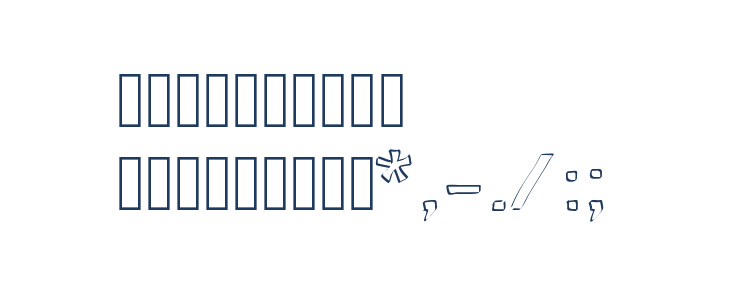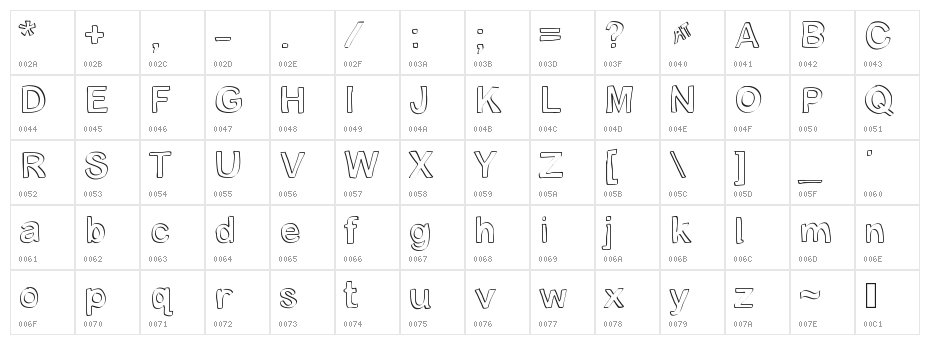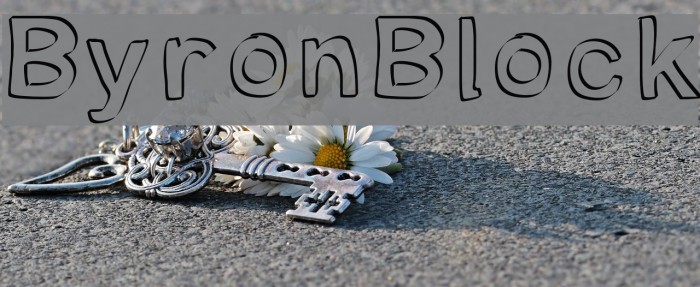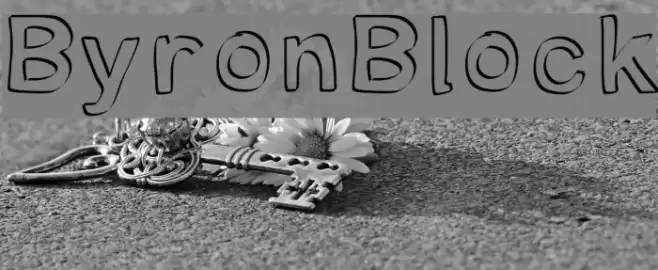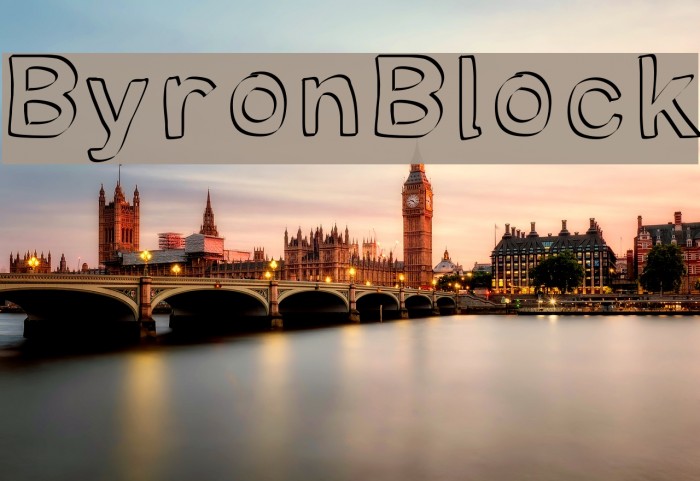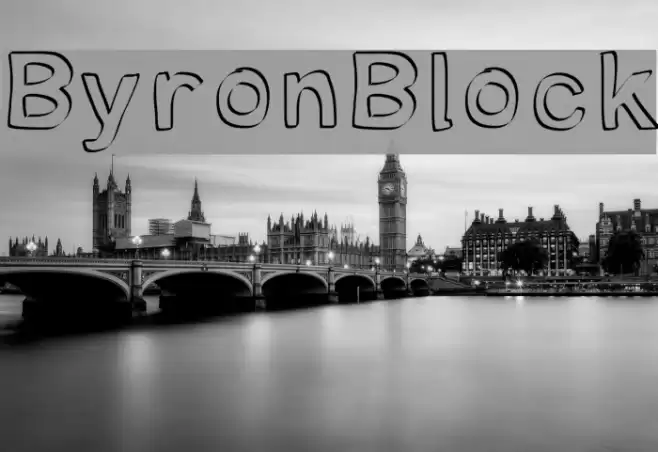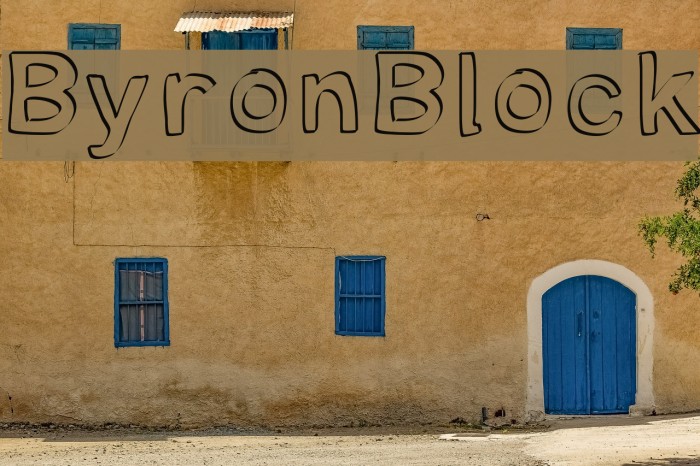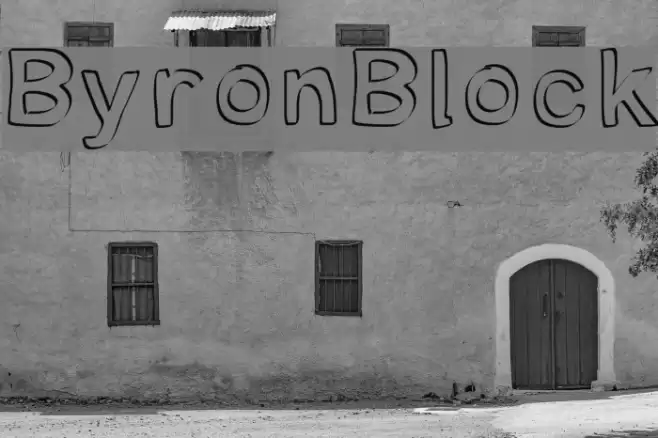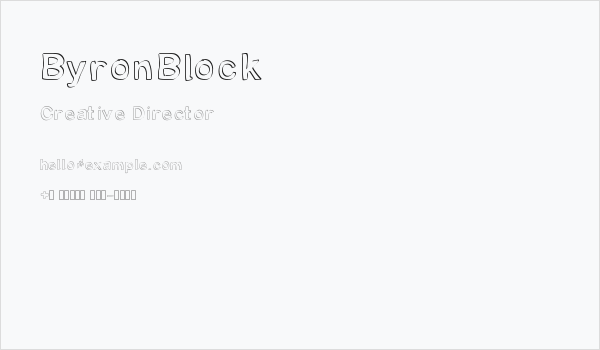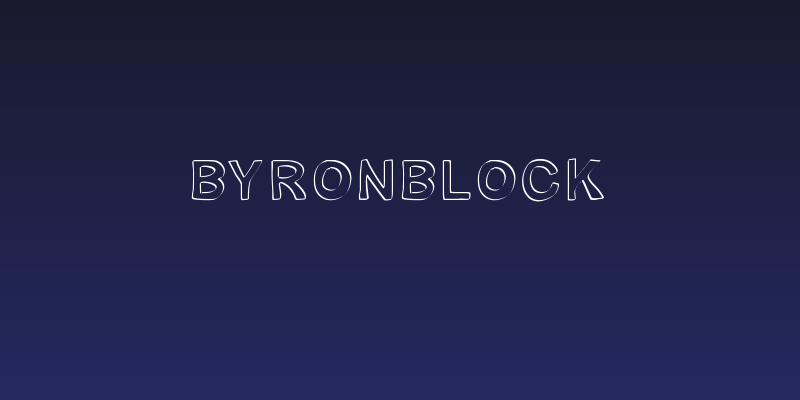
ByronBlock Font
ByronBlock Description
This font features a bold, outlined style that gives it a strong and impactful appearance. The uppercase and lowercase letters maintain a consistent width, creating a harmonious look across the alphabet. The characters are well-defined with a modern, geometric influence, making them suitable for a variety of design applications. The numerals and special characters follow the same outlined style, ensuring uniformity throughout. This font's clean lines and structured form make it ideal for projects that require a contemporary and eye-catching typeface.
Proposed ProjectsIdeal for headlines, posters, branding, and any design that requires a bold and modern typeface.